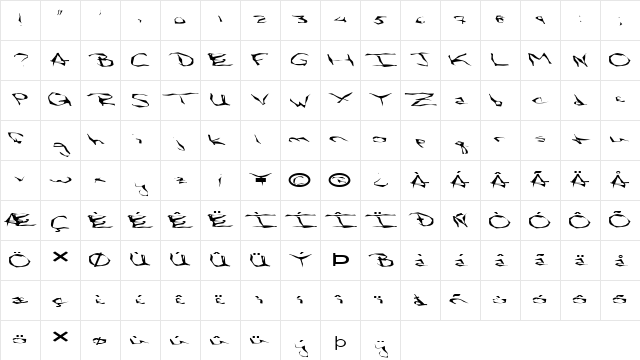
FZ WACKY 58 EX Normal
FZ WACKY 58 EX Normal Font Preview
FZ WACKY 58 EX Normal Uppercase Preview
FZ WACKY 58 EX Normal Lowercase Preview
FZ WACKY 58 EX Normal Numeric Preview
FZ WACKY 58 EX Normal Character Map
Complete FZ WACKY 58 EX Normal glyph index. Displaying only characters natively supported by FZ WACKY 58 EX Normal font.
FZ WACKY 58 EX Normal Character Map
Design Context for FZ WACKY 58 EX
FZ WACKY 58 EX is a composed and adaptable typeface that performs quietly and consistently across a wide range of design contexts.